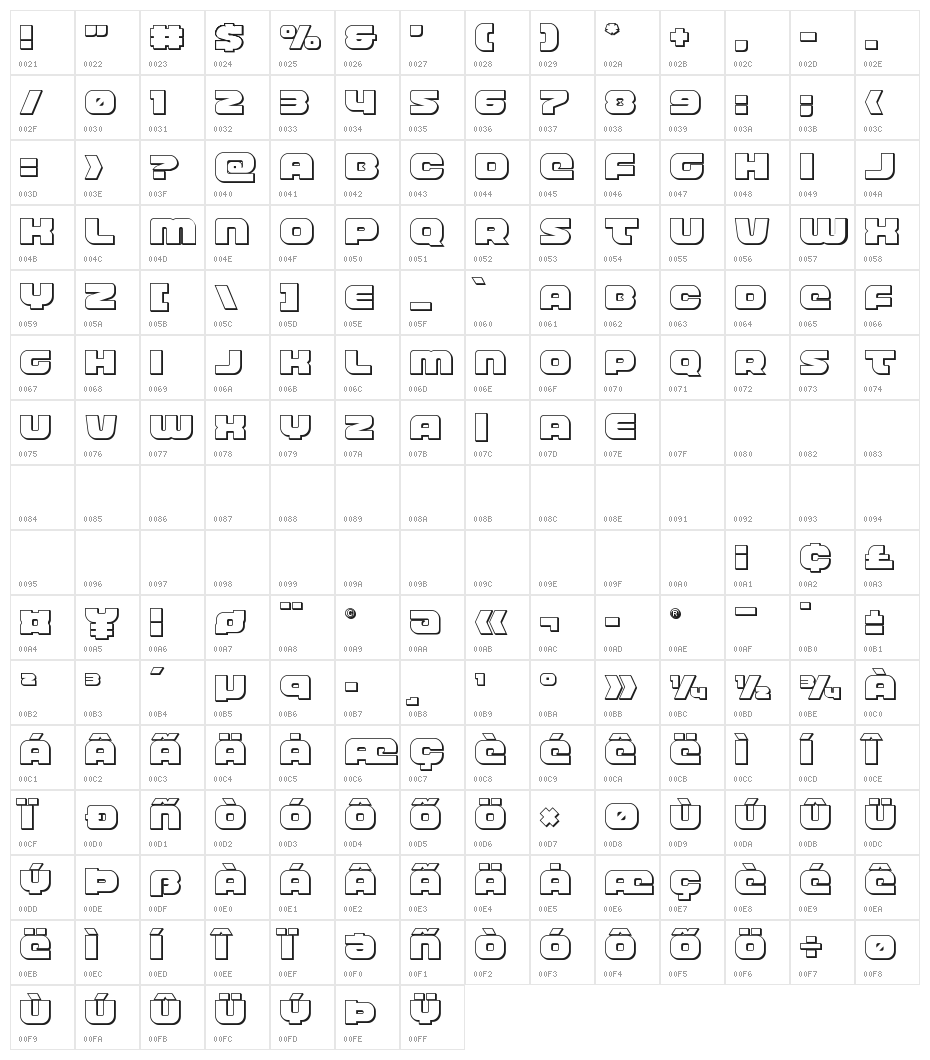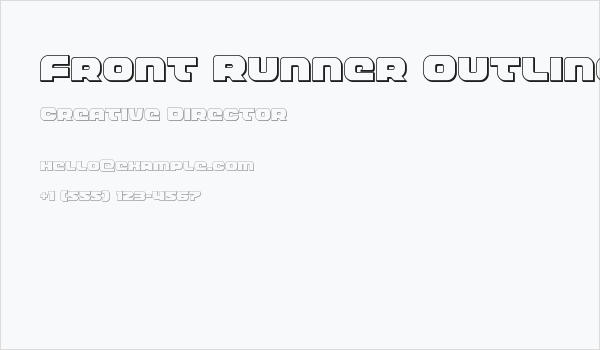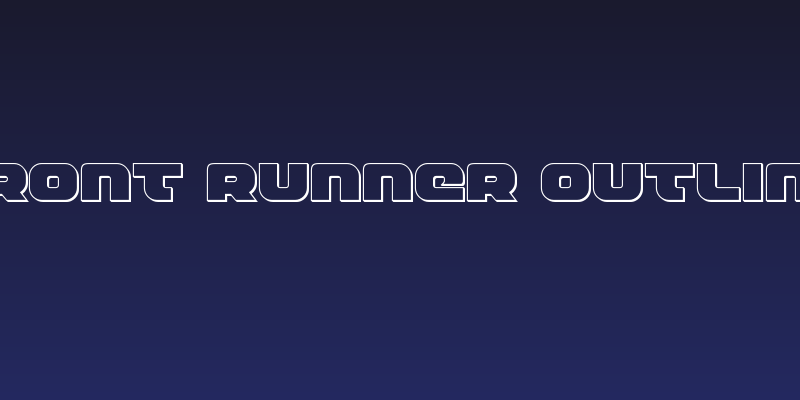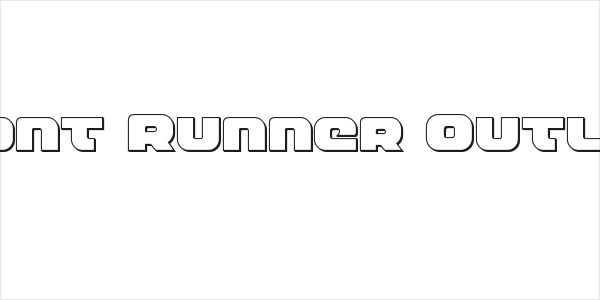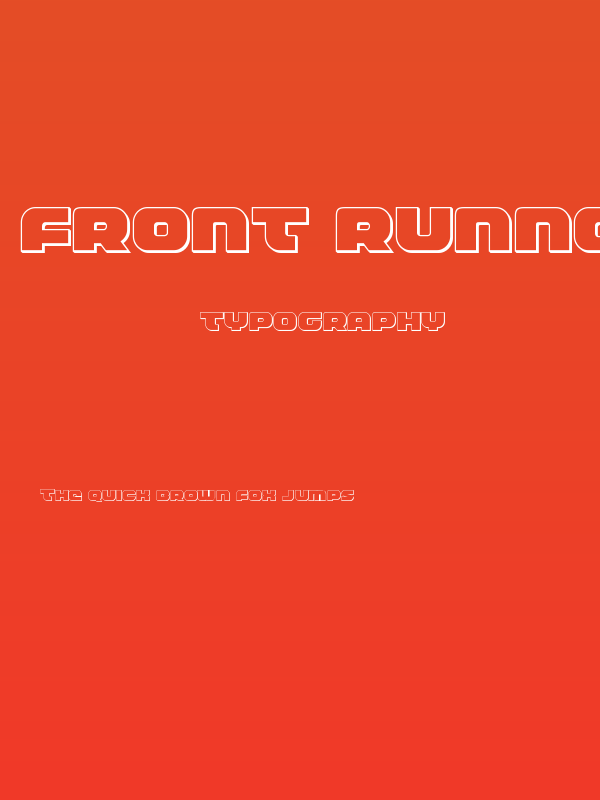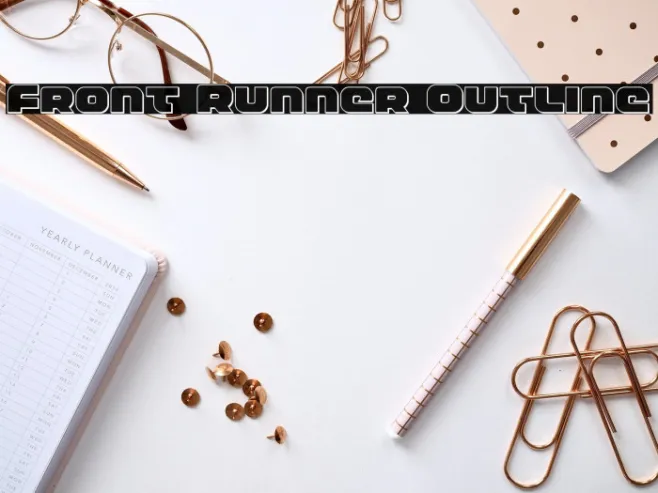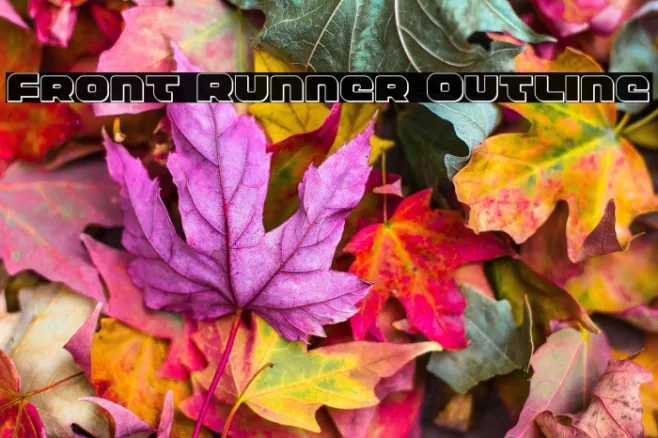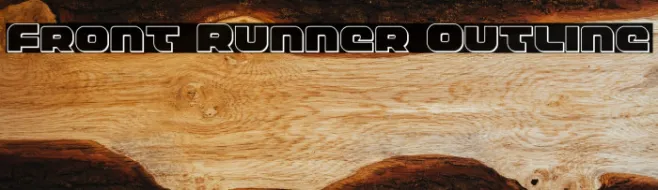
Front Runner Outline Font
Front Runner Outline Description
This font features a bold, outlined style with a futuristic and geometric aesthetic. The characters are uppercase and have a uniform thickness, creating a strong visual impact. The design is clean and modern, with a focus on symmetry and balance. The spacing between characters is normal, allowing for easy readability while maintaining a distinct and eye-catching appearance. The font's outline style gives it a unique look, making it suitable for various creative applications. It is versatile and can be used in both digital and print media, offering a contemporary feel that is both stylish and functional.
| Proposed Projects | Ideal for branding, posters, headlines, and digital media projects. |